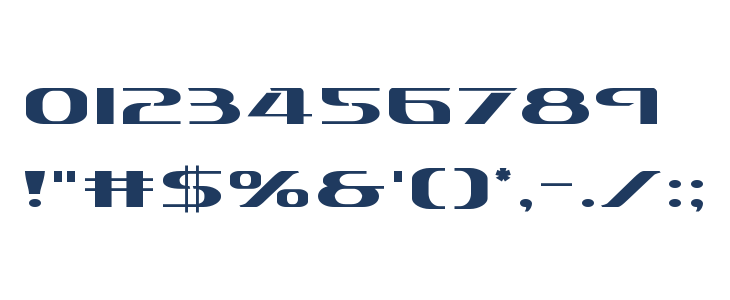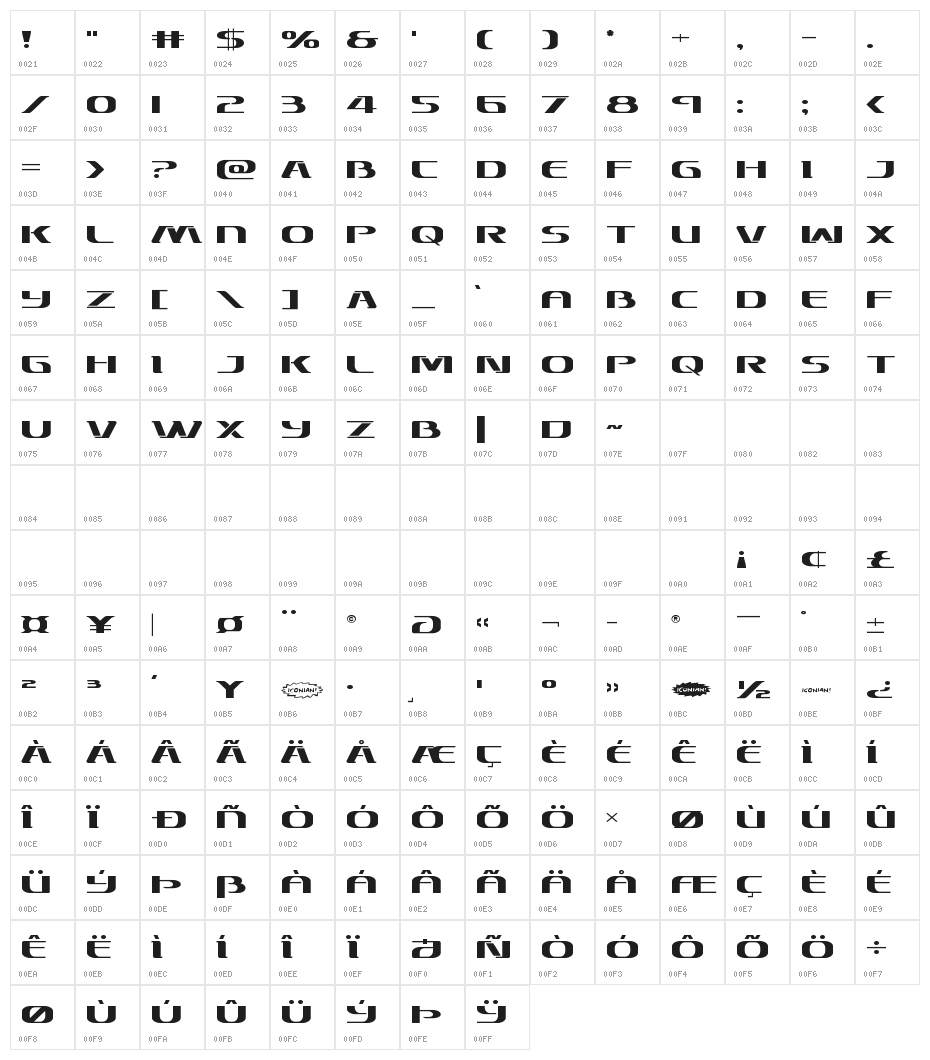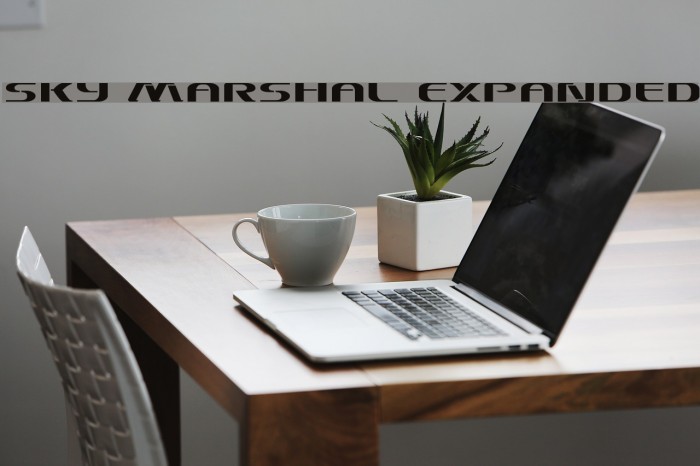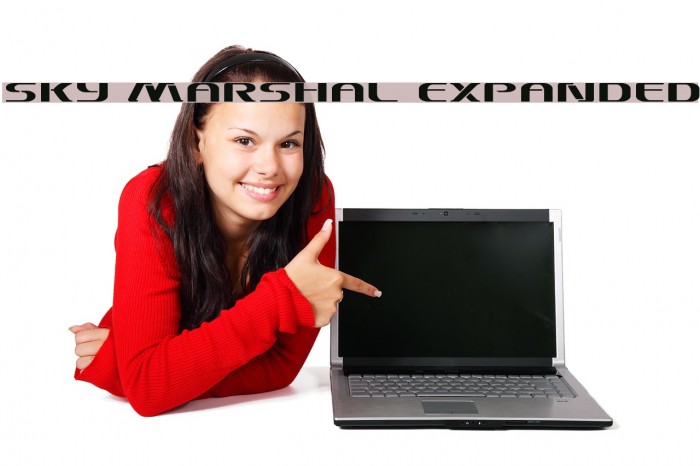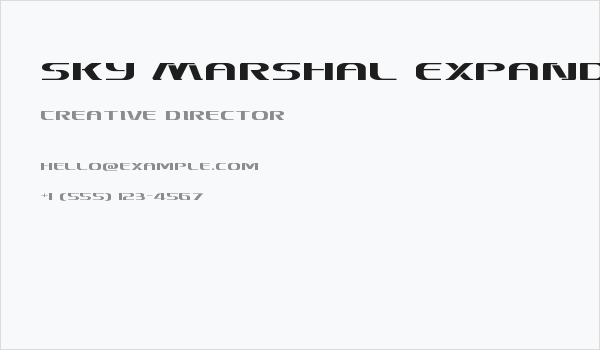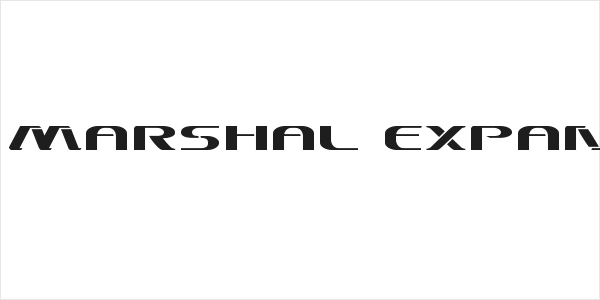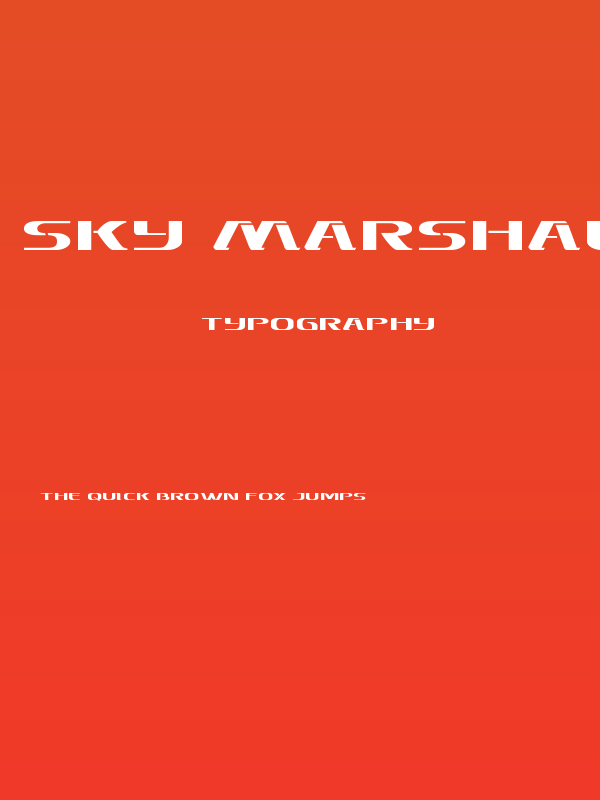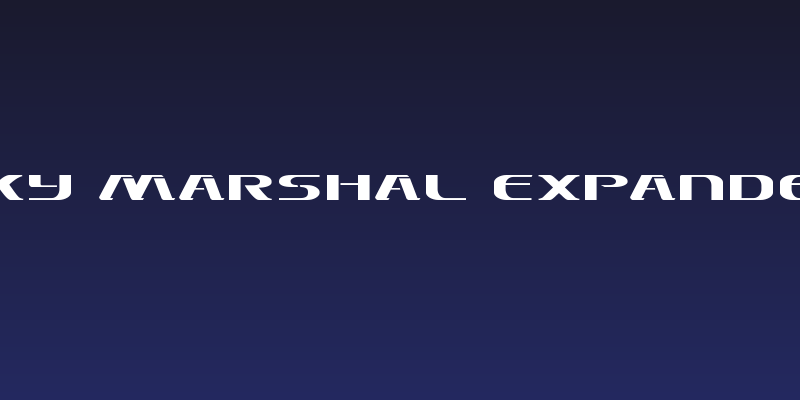
Sky Marshal Expanded Font
Sky Marshal Expanded Description
This font features a futuristic and bold design with sharp, angular edges and a distinct geometric style. The characters are wide and expansive, creating a sense of strength and modernity. The uppercase and lowercase letters maintain a consistent style, with unique cuts and slants that add a dynamic feel. Numbers and special characters are designed to match the boldness of the alphabet, ensuring a cohesive look across all text. The font's expanded width and high contrast in stroke thickness make it stand out, ideal for attention-grabbing designs.